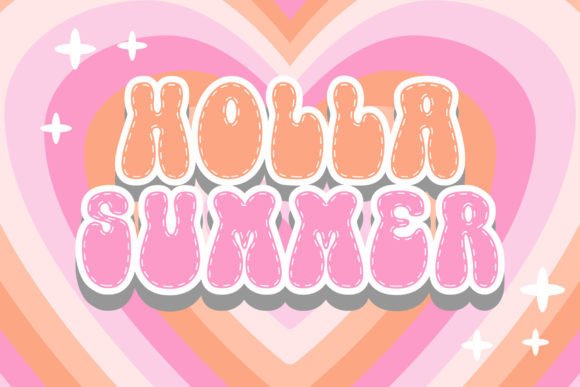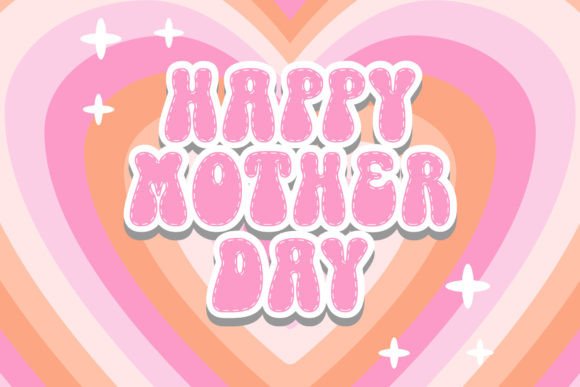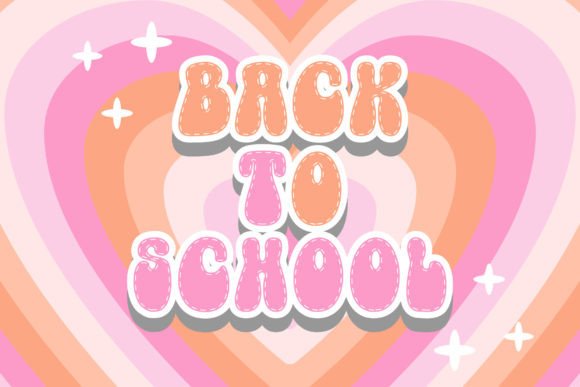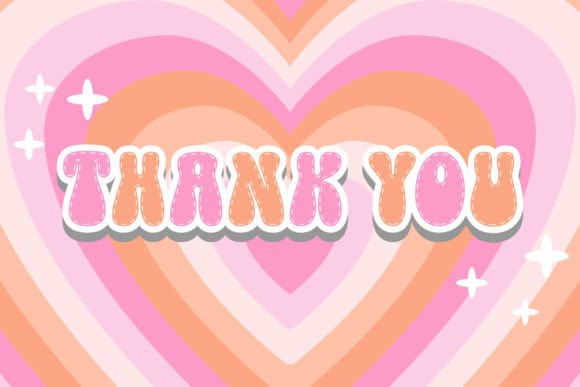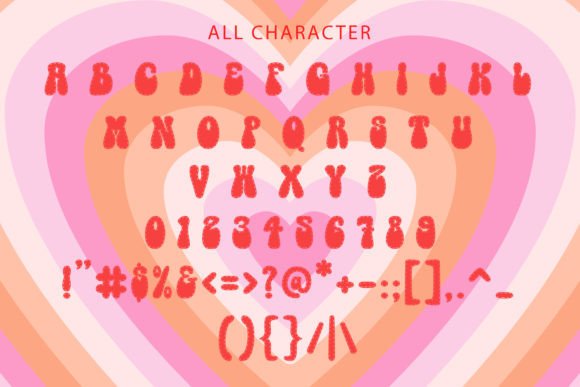
Groovy Stitch Font: Elevate Your Designs with a Touch of Retro Charm
Are you on the hunt for a font that embodies the essence of playfulness, romance, and exquisiteness? Look no further than the Groovy Stitch Font. This versatile and stylish font is perfect for designers and crafters seeking to infuse their projects with a dash of retro charm. In this article, we’ll dive into the world of Groovy Stitch, exploring its features, applications, and the creative possibilities it offers.
What is Groovy Stitch Font?
Groovy Stitch is a carefully crafted, retro display font that exudes a sense of playfulness and sophistication. Its unique, groovy design makes it an excellent choice for a wide range of applications, from greeting cards and headlines to branding and packaging. With Groovy Stitch, you can add a touch of nostalgia and whimsy to your designs, setting them apart from the ordinary.
Key Features of Groovy Stitch Font
- Versatility: Groovy Stitch is a highly versatile font, suitable for various design projects, including digital and print materials.
- Playful and Romantic: The font’s unique design combines playfulness with romance, making it perfect for projects that require a touch of whimsy and elegance.
- Retro Charm: Groovy Stitch boasts a distinctly retro aesthetic, evoking memories of the past while still feeling fresh and modern.
- Easy to Read: Despite its stylized design, Groovy Stitch remains easy to read, ensuring that your message is conveyed clearly and effectively.
Applications of Groovy Stitch Font
Groovy Stitch is an incredibly versatile font, suitable for a wide range of applications, including:
- Greeting Cards: Add a touch of personality to your greeting cards, making them stand out from the crowd.
- Headlines and Titles: Use Groovy Stitch to create eye-catching headlines and titles for your blog posts, articles, or social media content.
- Branding and Packaging: Infuse your brand with a dash of retro charm, making it more memorable and engaging.
- Invitations and Announcements: Create stylish and sophisticated invitations and announcements that set the tone for your event.
Tips for Using Groovy Stitch Font
To get the most out of Groovy Stitch, consider the following tips:
- Pair with Neutral Fonts: Combine Groovy Stitch with neutral fonts to create visual interest and balance in your designs.
- Experiment with Colors: Play with different colors to find the perfect match for your Groovy Stitch font, ensuring it pops and complements your design.
- Use for Headlines and Titles: Groovy Stitch is perfect for headlines and titles; use it to create a lasting impression.
Why Designers and Crafters Love Groovy Stitch Font
Groovy Stitch has quickly become a favorite among designers and crafters, and for good reason:
- Unique Design: The font’s unique, groovy design sets it apart from more traditional fonts, allowing designers to create distinctive and memorable designs.
- Ease of Use: Groovy Stitch is incredibly easy to use, making it accessible to designers and crafters of all skill levels.
- Customization Options: With Groovy Stitch, you can experiment with various design elements, such as colors, textures, and patterns, to create truly unique designs.
| Font Name | Groovy Stitch Font |
| Author | Densu Creative |